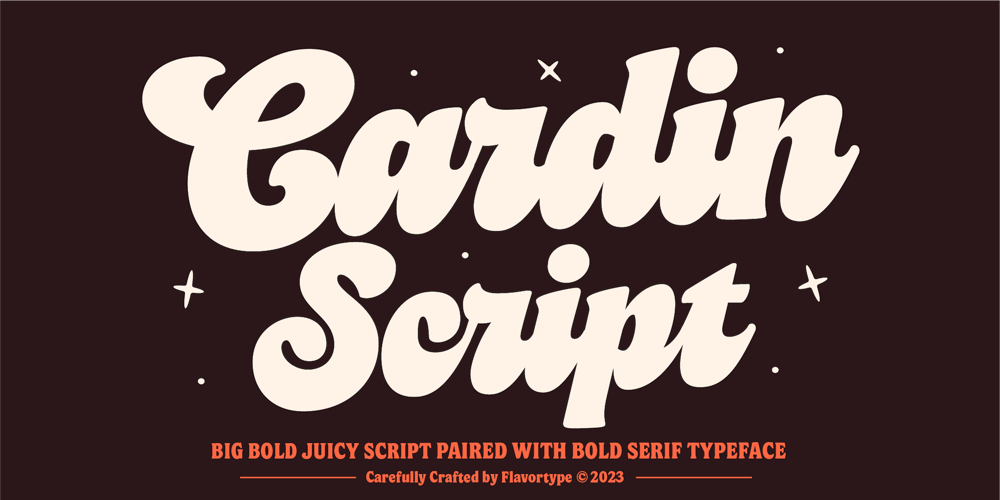
Cardin Font Family was designed by Ilham Herry, Adam Fathoni Haris and published by Flavortype. Cardin contains 2 styles and family package options. We’re introducing Cardin, A Big, Bold, Juicy script paired with bold serif.A captivating duo that effortlessly combines the bold playfulness of script with the timeless elegance of serif. With two distinct styles, this font set offers the perfect blend of contemporary trends and a touch of vintage allure, resulting in a harmonious balance that is both visually striking and versatile.